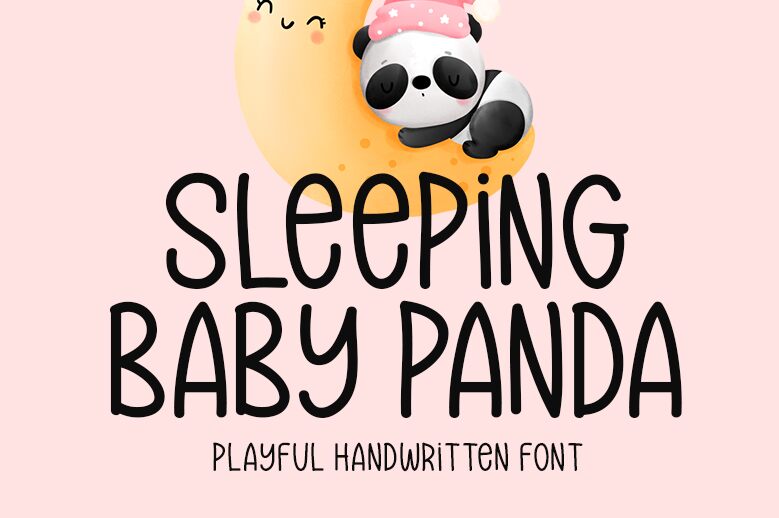
Sleeping Baby Panda
Sleeping Baby Panda, a creation by Md Shohail Bhuian, exudes charm with its handwritten style that appears to have been penned with a whimsical flourish. The font's condensed letters curl playfully, reminiscent of the gentle roundness one might associate with a slumbering panda cub. This personal touch imbues designs with warmth and an inviting sense of intimacy.
This font finds its niche in projects that call for a dash of innocence and delight. It is particularly well-suited for children's book titles, greeting cards, casual invitations, and any design space where the goal is to spark joy and convey comfort through typography's equivalent of a soft embrace.